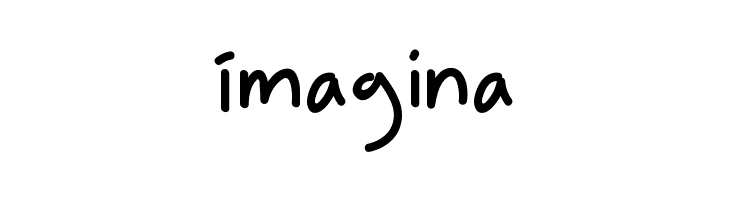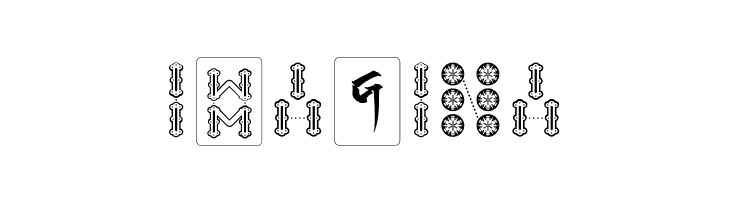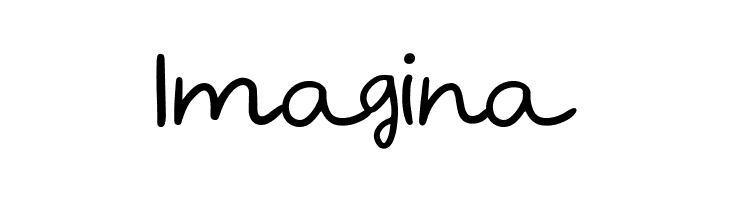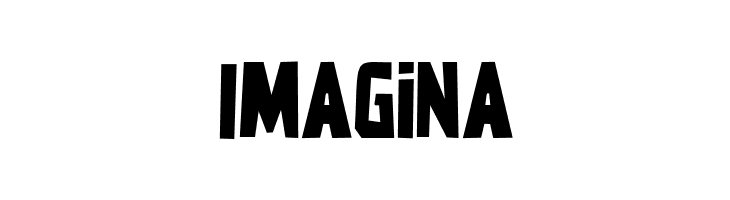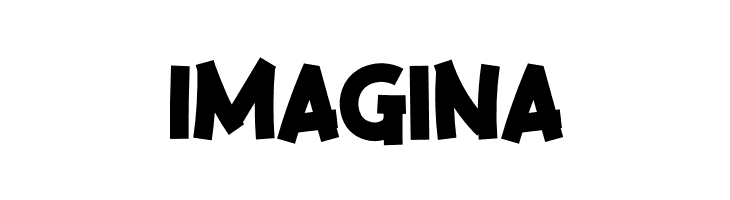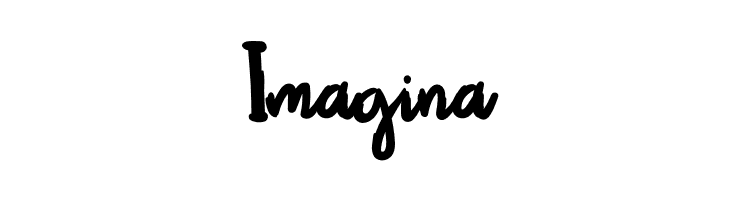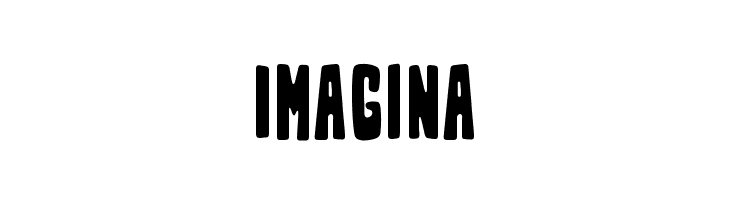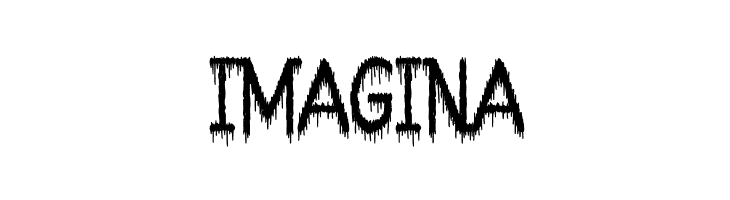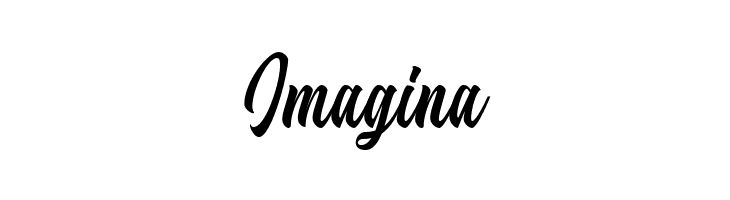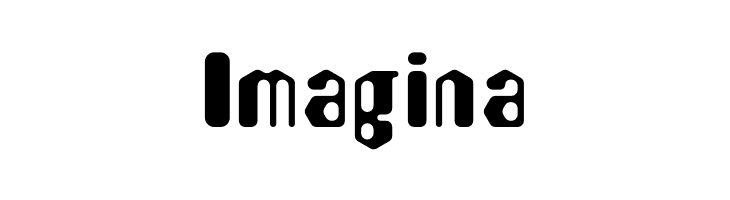
A bold, cursive font with dynamic brush strokes and expressive style.
An elegant, cursive font with intricate loops and swirls.
Playful, handwritten-style font with irregular strokes.
A bold, handwritten-style font with a playful and energetic appearance.
A playful, decorative font with bold, patterned letters.
An elegant, decorative script font with floral embellishments.
A bold, playful font with rounded, exaggerated curves and thick strokes.
Casual handwritten font with a playful style.
Elegant cursive script with a handwritten style.
A cursive, handwritten-style font with elegant, flowing strokes.
An elegant script font with flowing, calligraphic strokes and a modern touch.
An elegant, flowing script font with graceful curves and continuous strokes.
A playful, bold font with a hand-drawn, casual style.
A bold, playful typeface with rounded, bubbly characters.
A bold, flame-inspired decorative font with intense, dynamic shapes.
A bold, playful script font with a handwritten feel.
A flowing, cursive font with elegant loops and consistent stroke width.
A bold, handwritten font with a casual and artistic style.
A playful, flowing script font with smooth, cursive strokes and elegant loops.
A playful, handwritten font with smooth, rounded edges and a casual vibe.
A playful and modern handwritten font with fluid, dynamic strokes.
A bold, playful handwritten font with dynamic curves and thick strokes.
A playful, hand-drawn font with tall, narrow letters and a whimsical style.
A playful, handwritten script font with a whimsical and fluid style.
A playful and festive script font with elegant loops and swirls.
A playful, handwritten font with fluid, connected letterforms and a casual style.
A graceful and elegant script font with flowing, cursive letterforms.
An elegant script font with flowing curves and decorative swashes.
A playful, handwritten font with elegant loops and curls.
A bold, geometric font with a distinct outline style, perfect for modern and impactful designs.
A bold, geometric outline font with a modern, industrial style.
An elegant script font with flowing, interconnected letters and a classic calligraphic style.
A bold, playful font with rounded, thick strokes and a whimsical style.